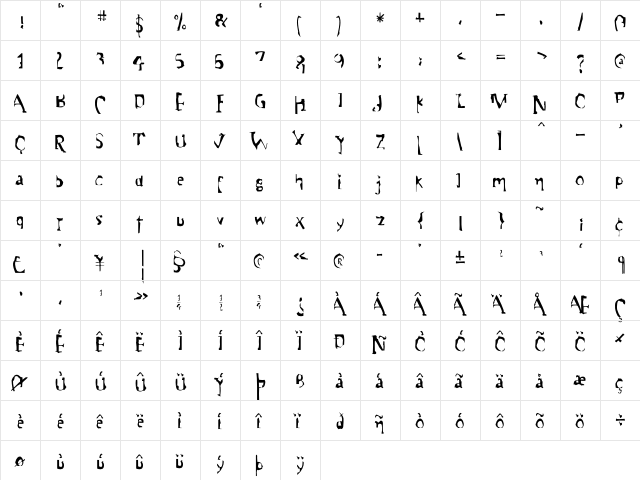
Motive Regular
Design Context for Motive Typeface
Motive is a composed and adaptable typeface that performs quietly and consistently across a wide range of design contexts.